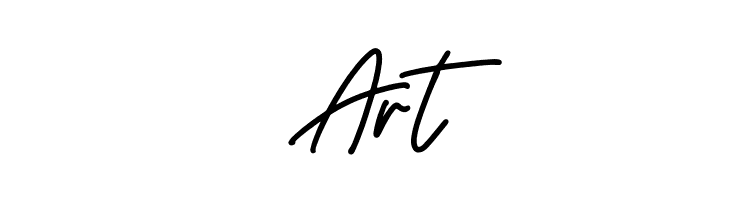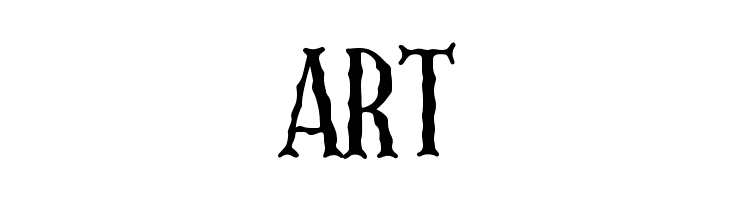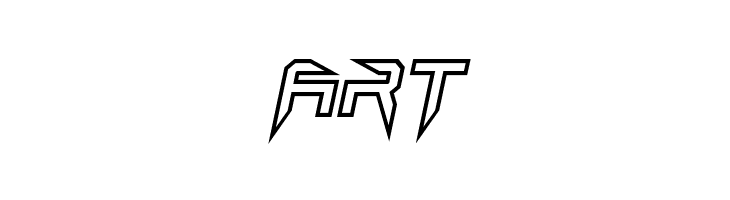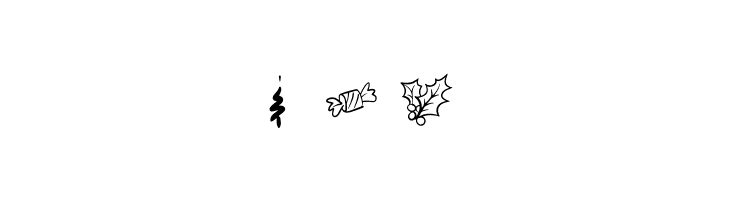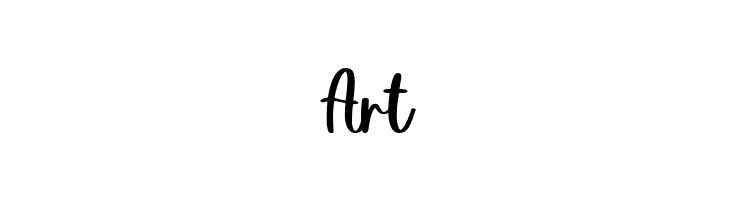
A playful and festive font with smooth, flowing curves and a hand-drawn quality.
A delicate and flowing script font with elegant, continuous strokes.
A fluid and elegant handwritten script with dynamic strokes.
A spooky, hand-drawn font with jagged, elongated characters.
A bold, angular, and italicized font with a futuristic, edgy design.
Hand-drawn holiday icon dingbat font.
A playful and elegant script font with a handwritten style.
A lively handwritten font with fluid, energetic strokes and a playful style.
A modern, handwritten cursive font with elegant, flowing lines.
A playful, cursive font with a festive, handwritten style.